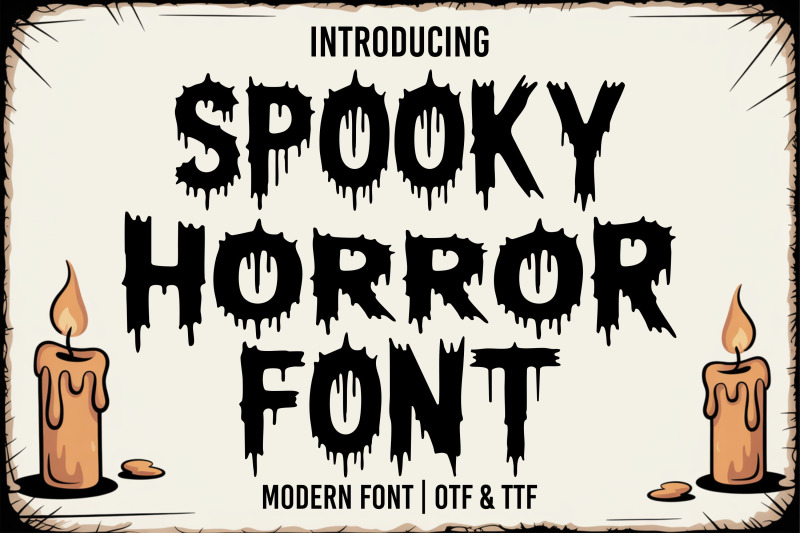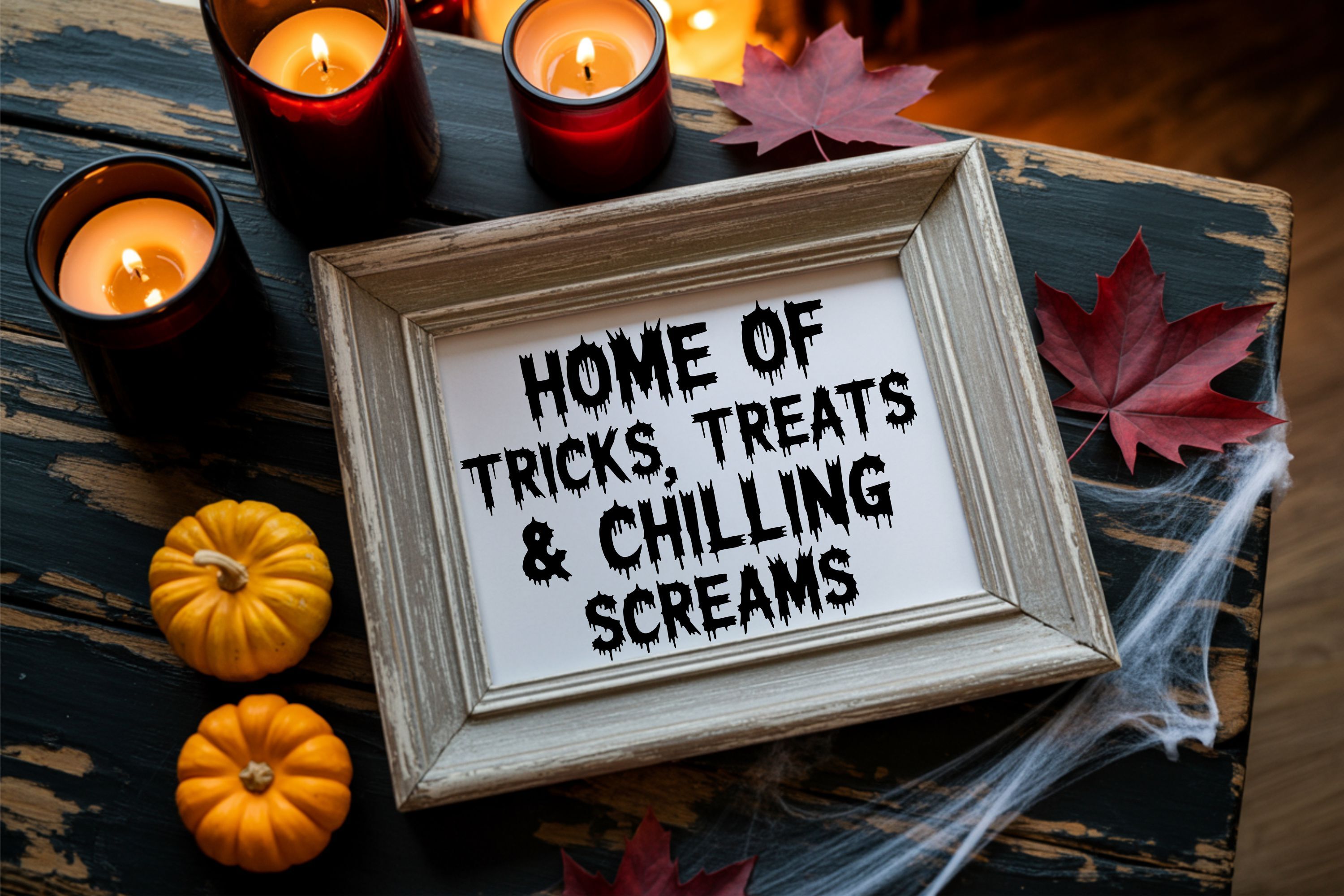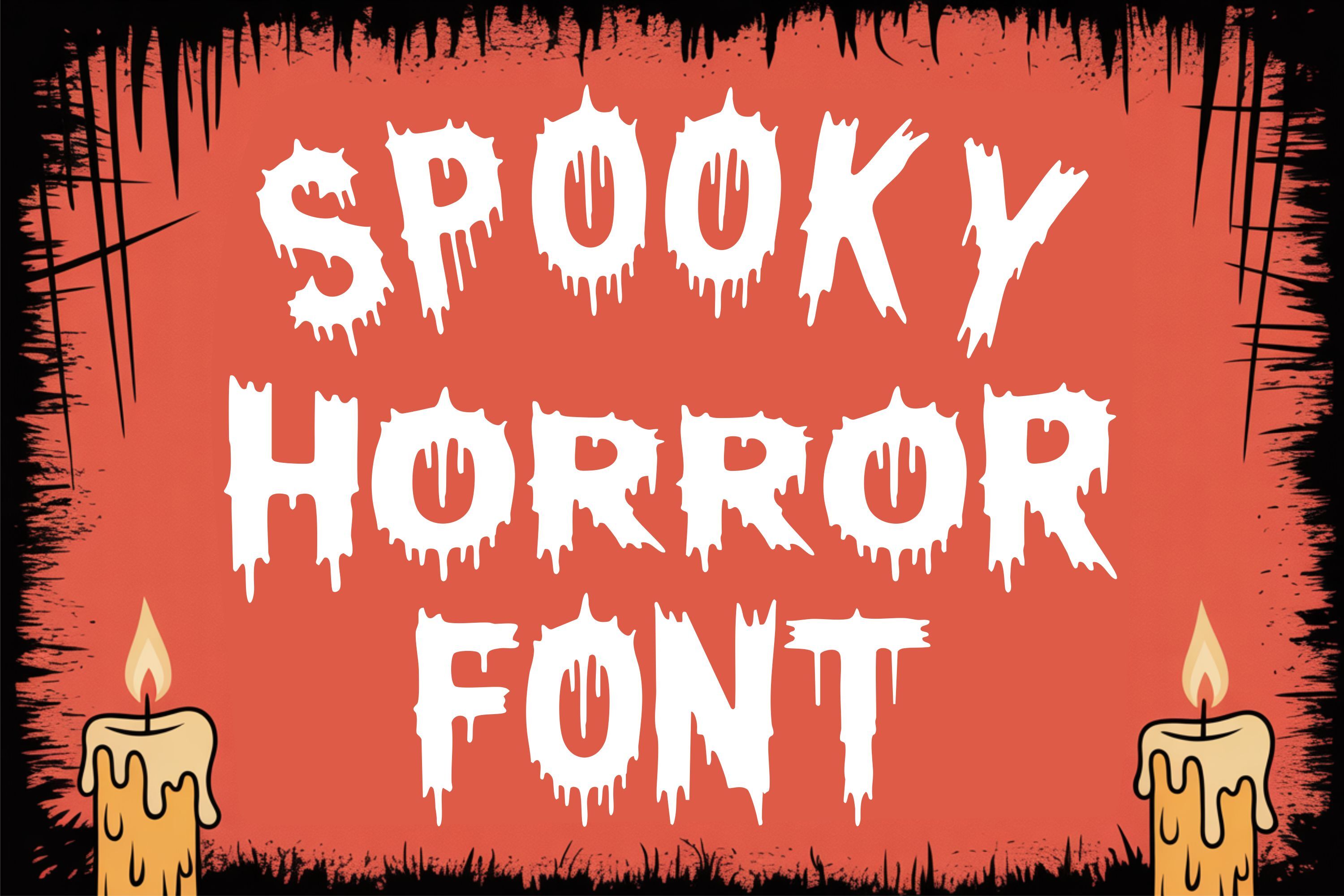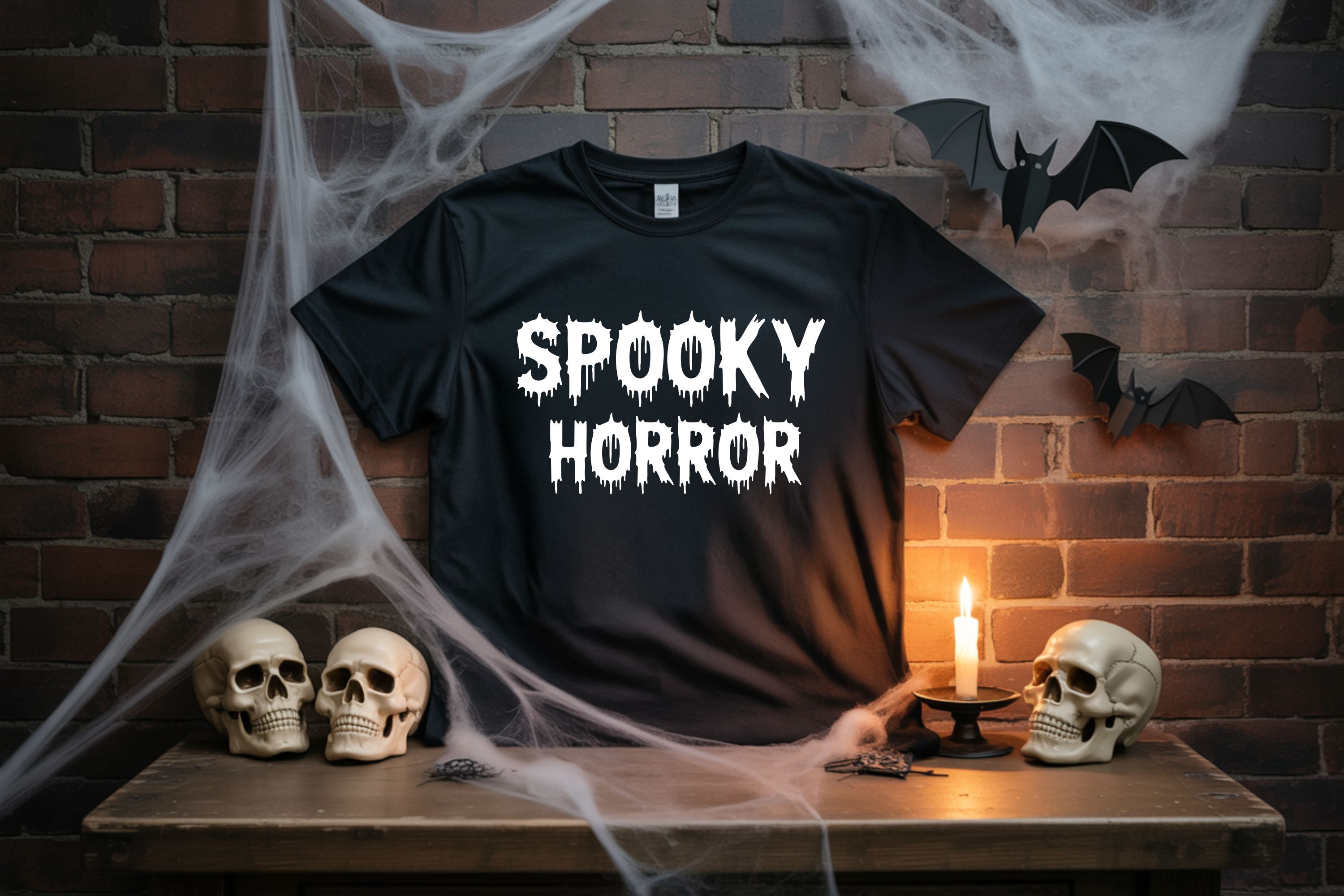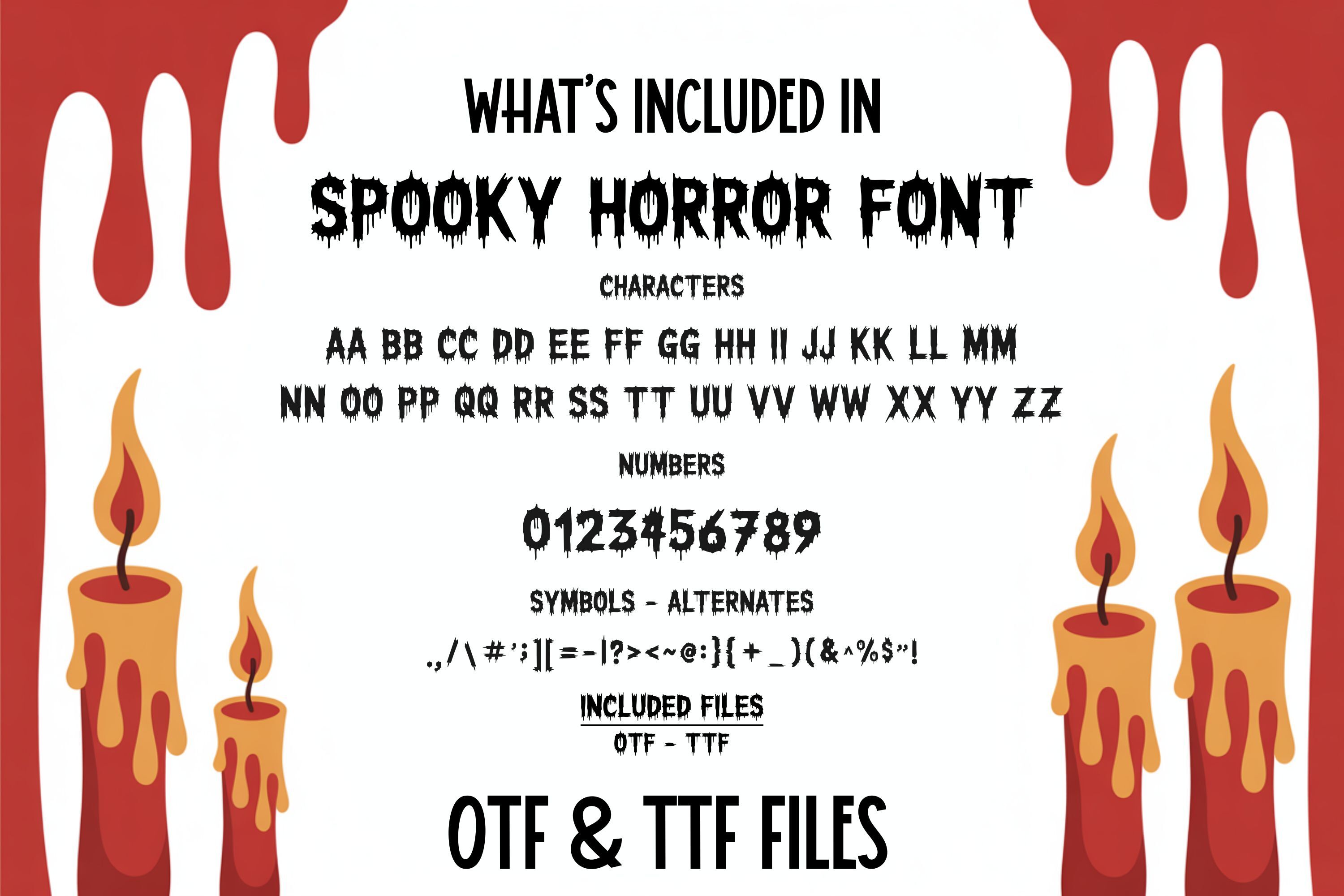
Spooky Horror Font is a dripping, spooky-style typeface perfect for all your Halloween-themed designs. Whether you're creating haunted house signs, scary party invitations, creepy t-shirt quotes, or spooky season crafts, this bold and chilling font will deliver maximum fright-factor. Each letter appears to be melting or dripping, adding a sinister yet playful twist to your designs. The font includes all uppercase characters, numbers, and a full set of punctuation and symbols. Easy to use in design software, it works flawlessly with Cricut, Silhouette, Glowforge, and laser-cutting machines. This modern horror typeface blends fun and fear, ideal for posters, SVG projects, wall art, or trick-or-treat bags. Bring eerie charm to your next project with a font that screams Halloween! Files are provided in both OTF and TTF formats for wide compatibility and crisp results.
Spooky Horror
Spooky Horror Font - A Halloween Display Font for Crafts